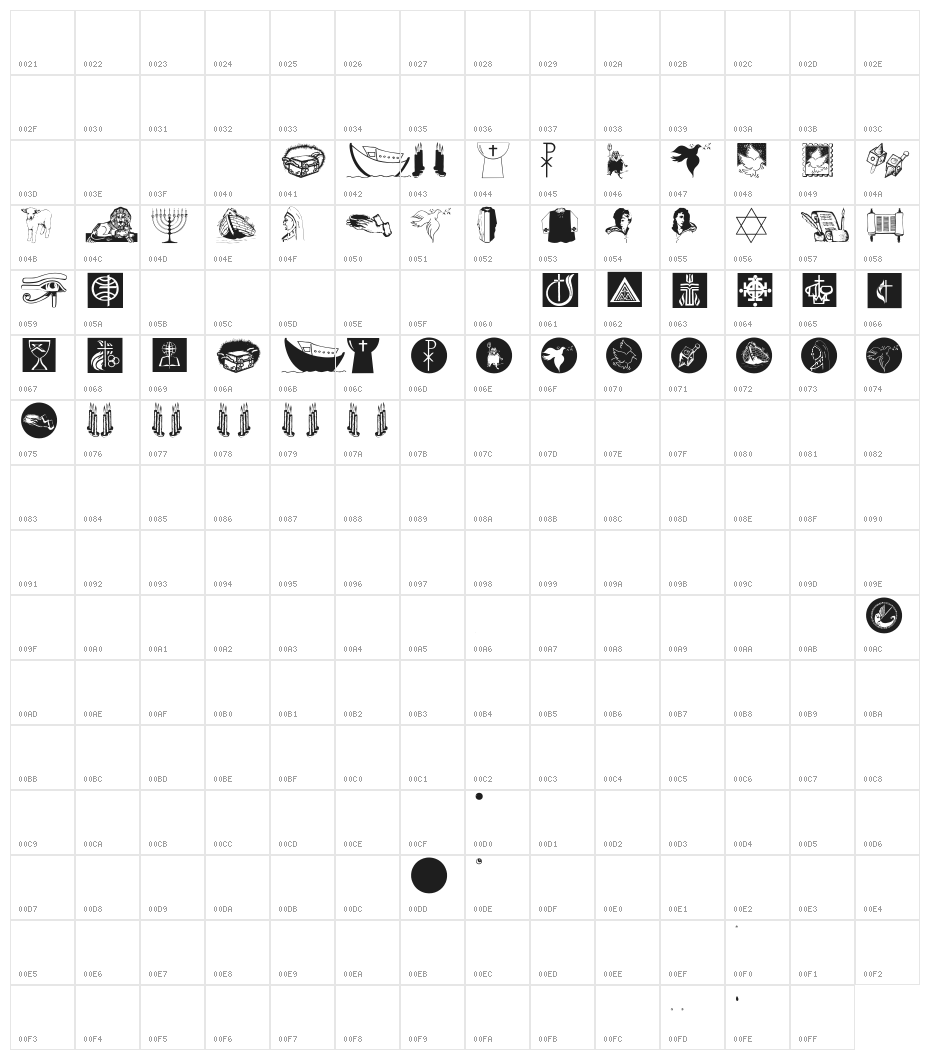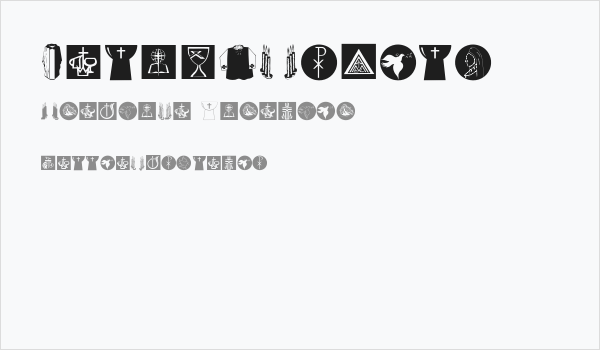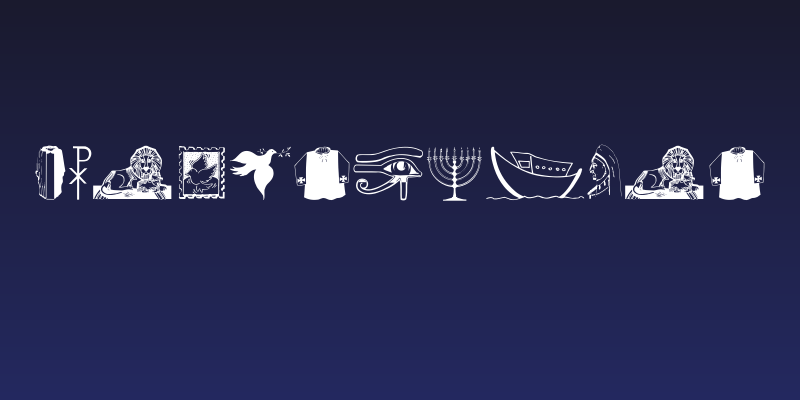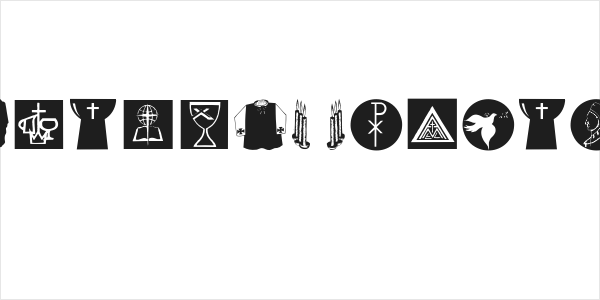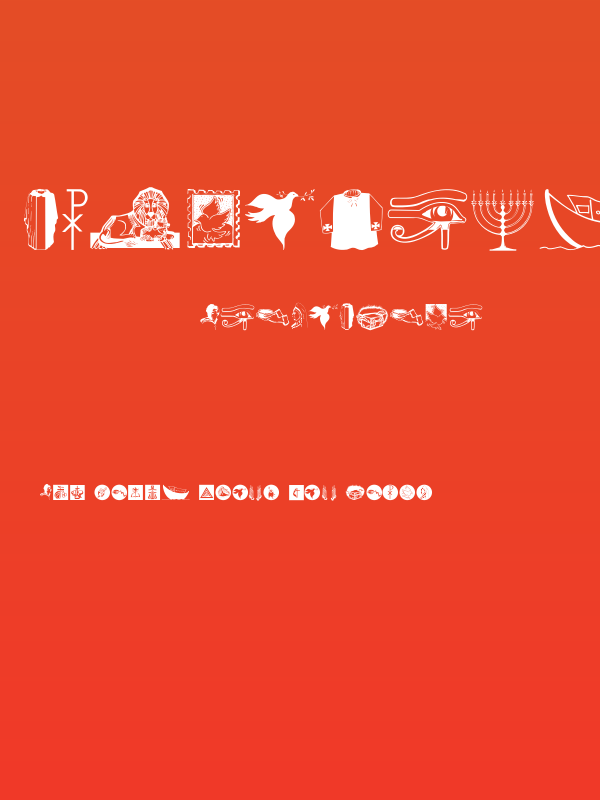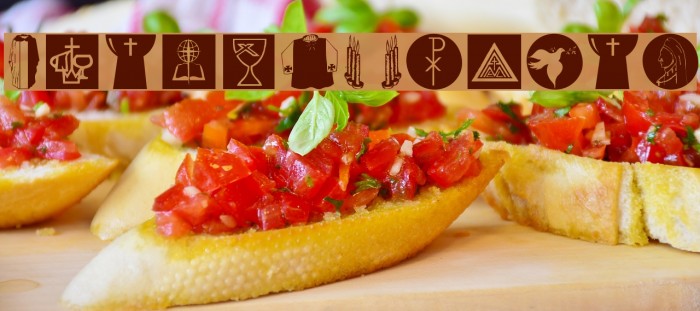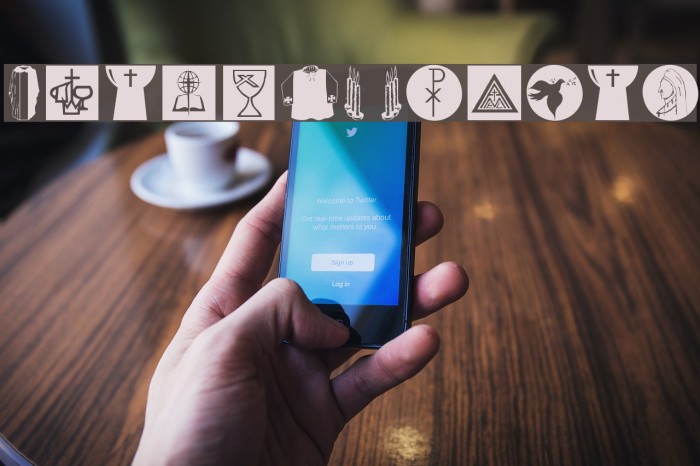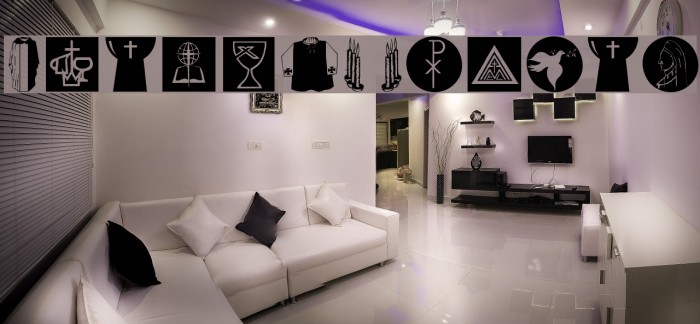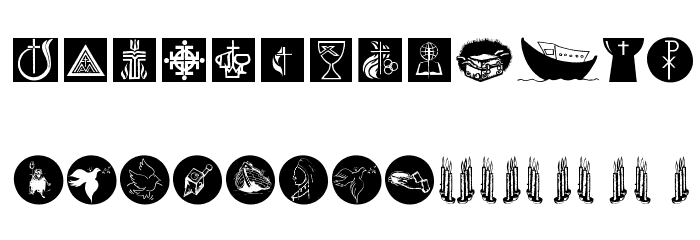
ReligSymbols Font
ReligSymbols Description
A collection of religious and spiritual symbols rendered as pictograms, featuring a mix of line art and filled shapes. The icons include representations from various faiths and traditions, with both circular and square backgrounds, as well as standalone illustrations. The style is consistent, with clear outlines and moderate detail.
| Overall Style | Decorative, Iconographic |
| Use Case | Logos, Decorative elements, Educational graphics |
| Proposed Projects | Educational materials, interfaith event branding, religious studies presentations, iconography for apps or websites, decorative print projects. |